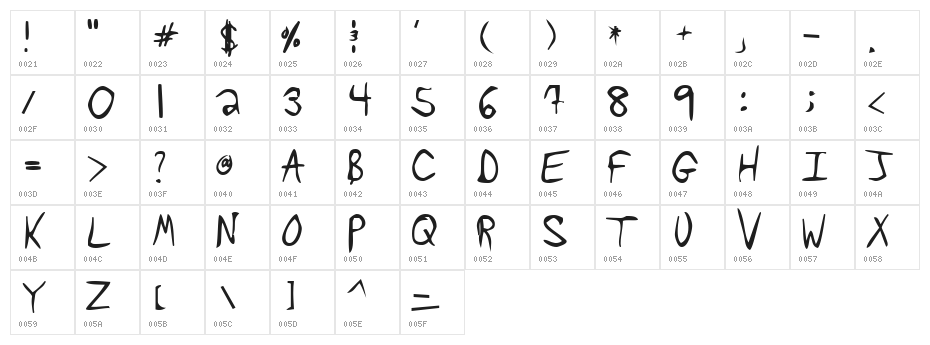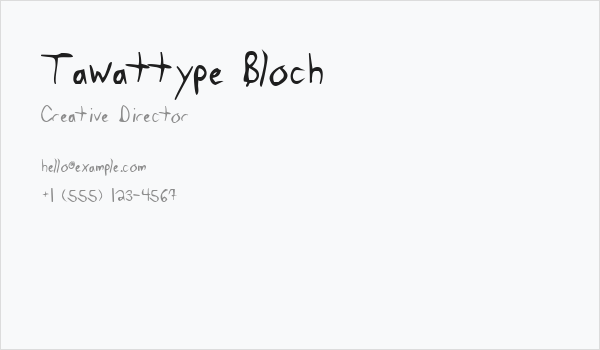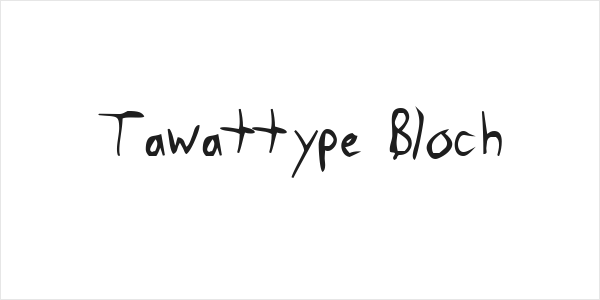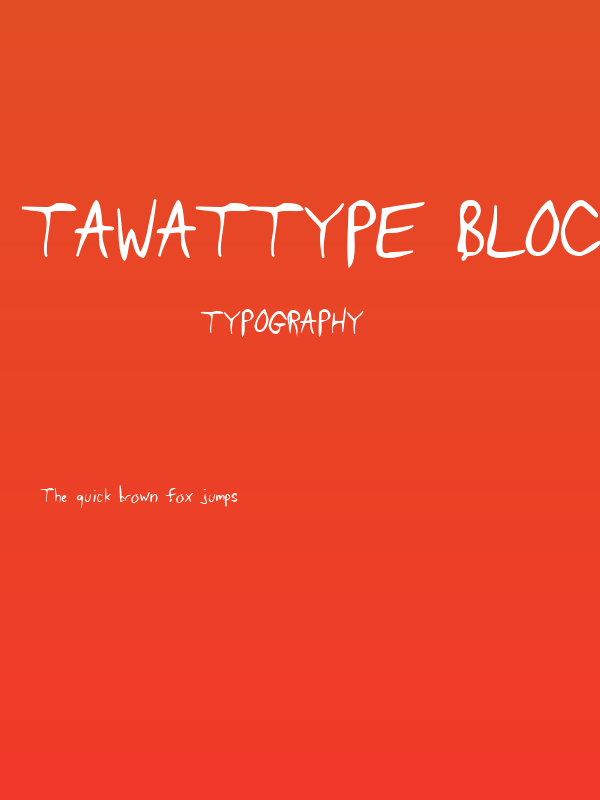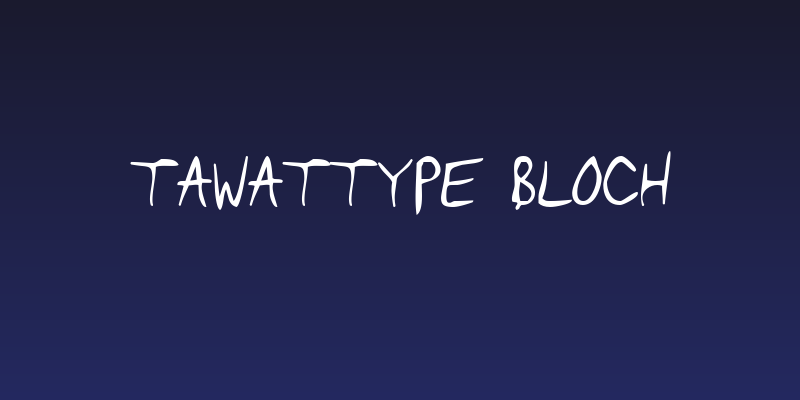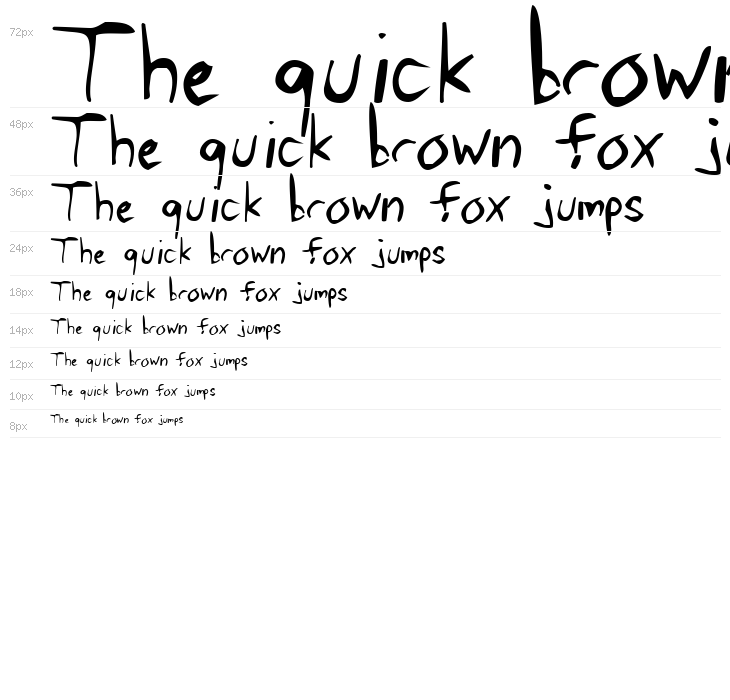
Tawattype Bloch Font
Tawattype Bloch Description
This font features a playful and informal handwritten style, characterized by its irregular strokes and varying line thickness. The uppercase and lowercase letters exhibit a casual, freeform appearance, with some letters leaning slightly, adding to the dynamic feel. The numerals and special characters maintain this whimsical style, making the font suitable for creative and informal applications. The overall look is approachable and friendly, with a touch of spontaneity that can add personality to any project.
| Proposed Projects | Ideal for children's books, creative posters, casual branding, and social media graphics. |